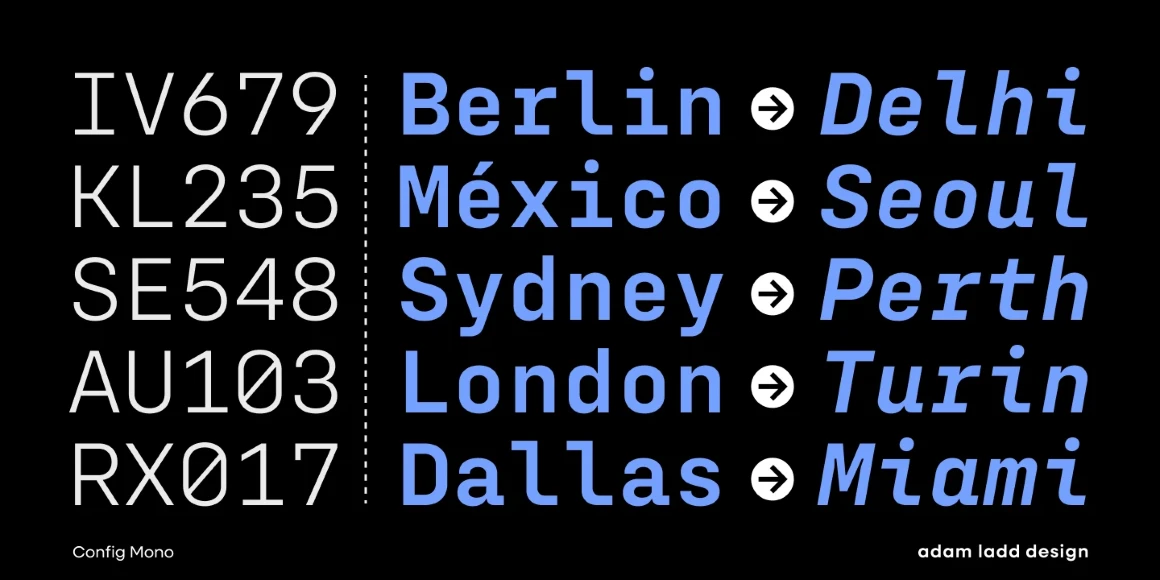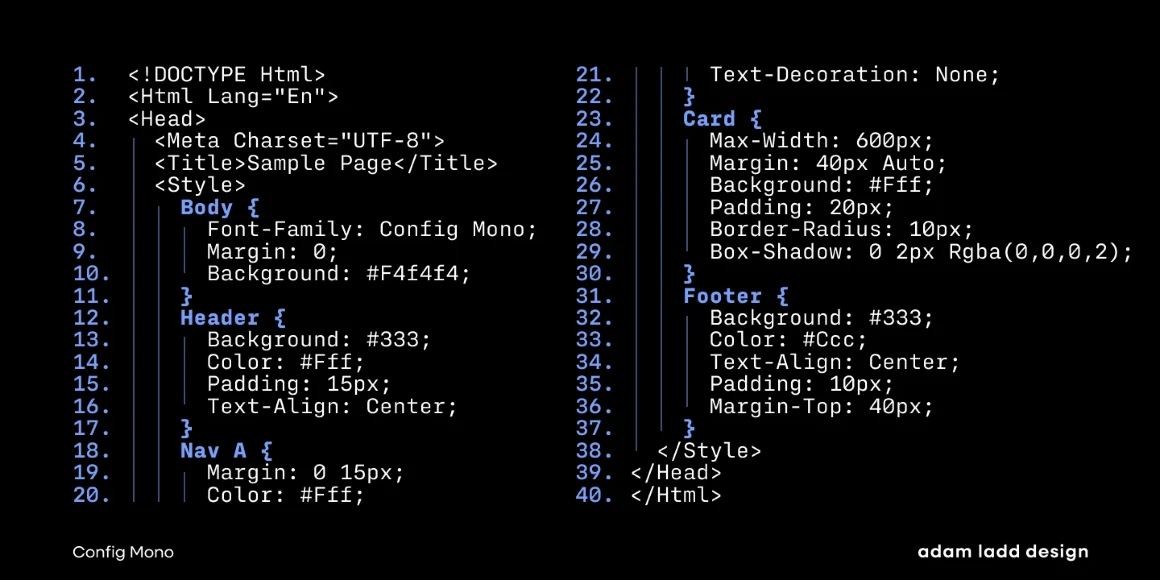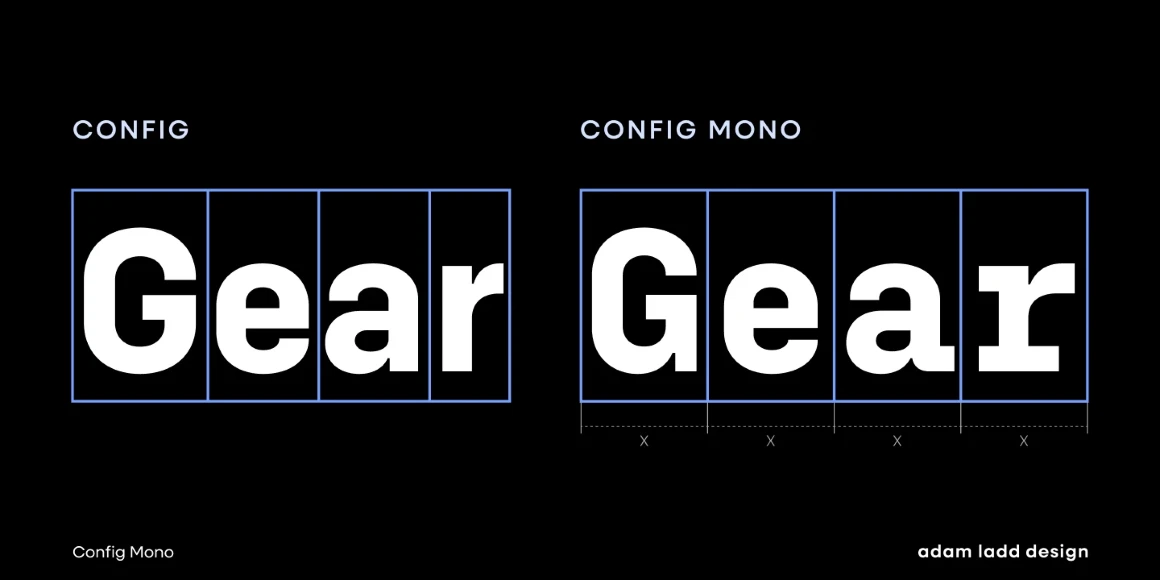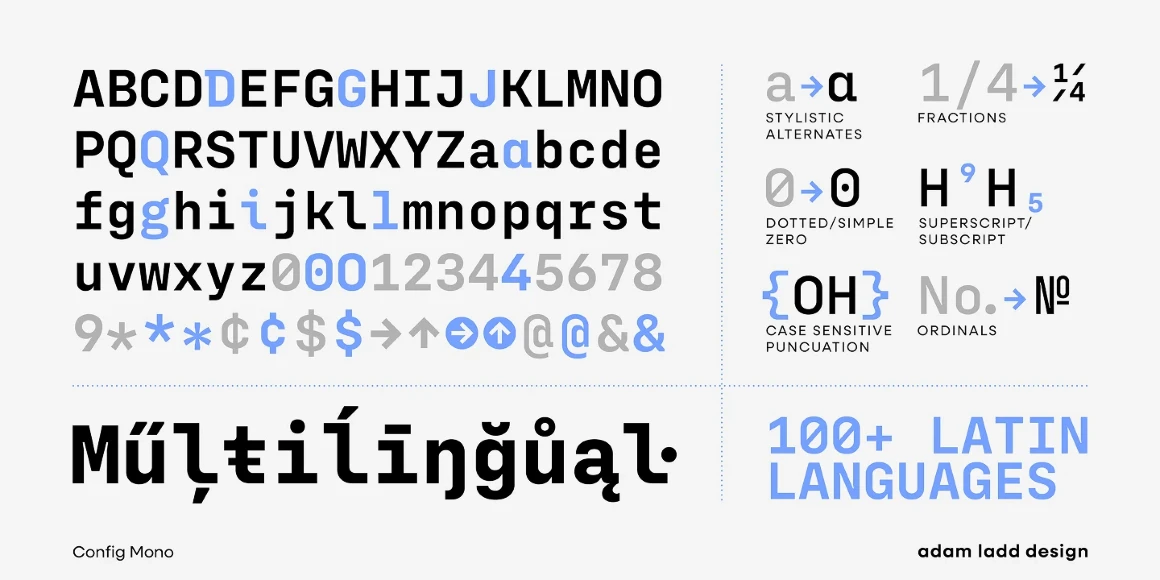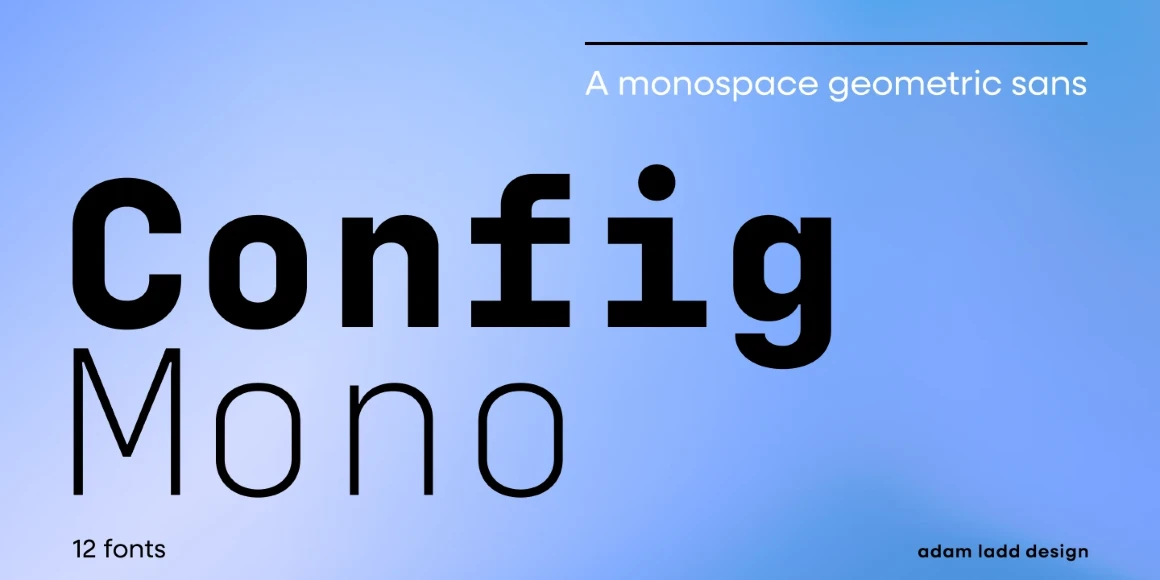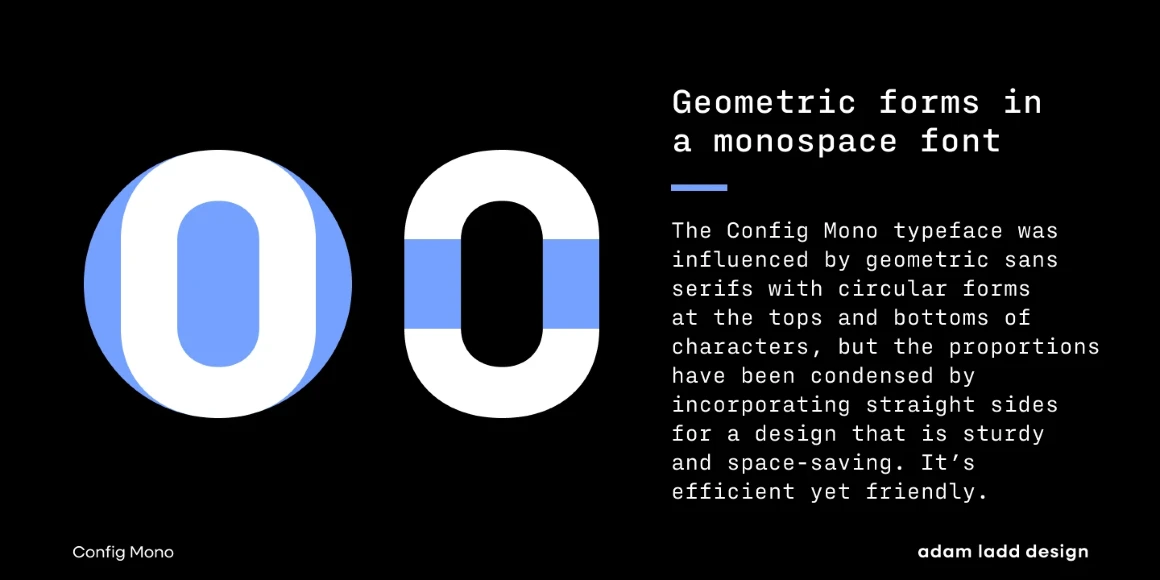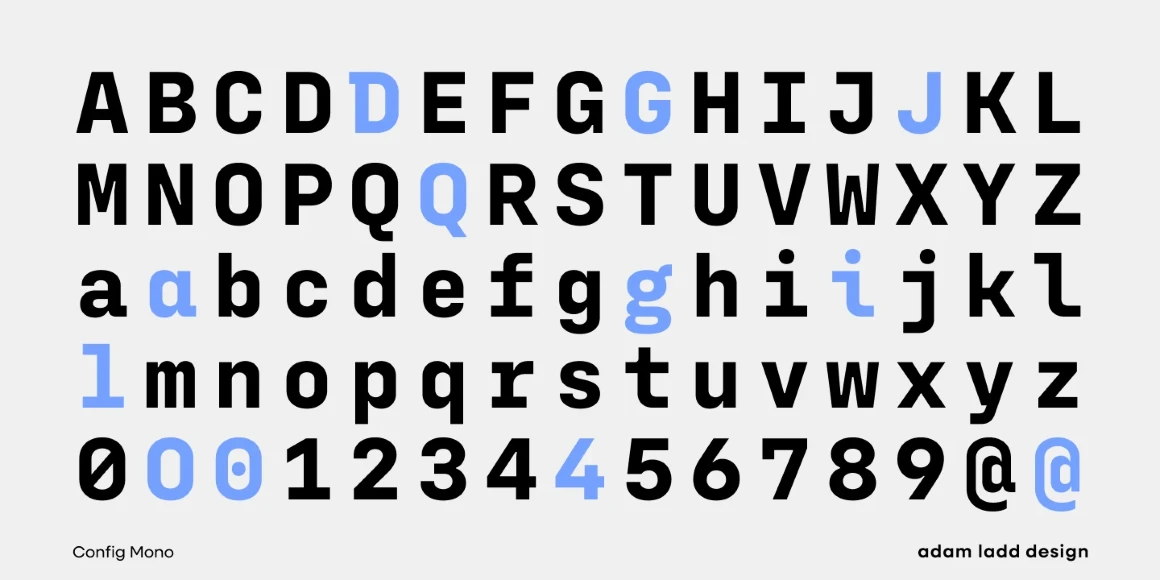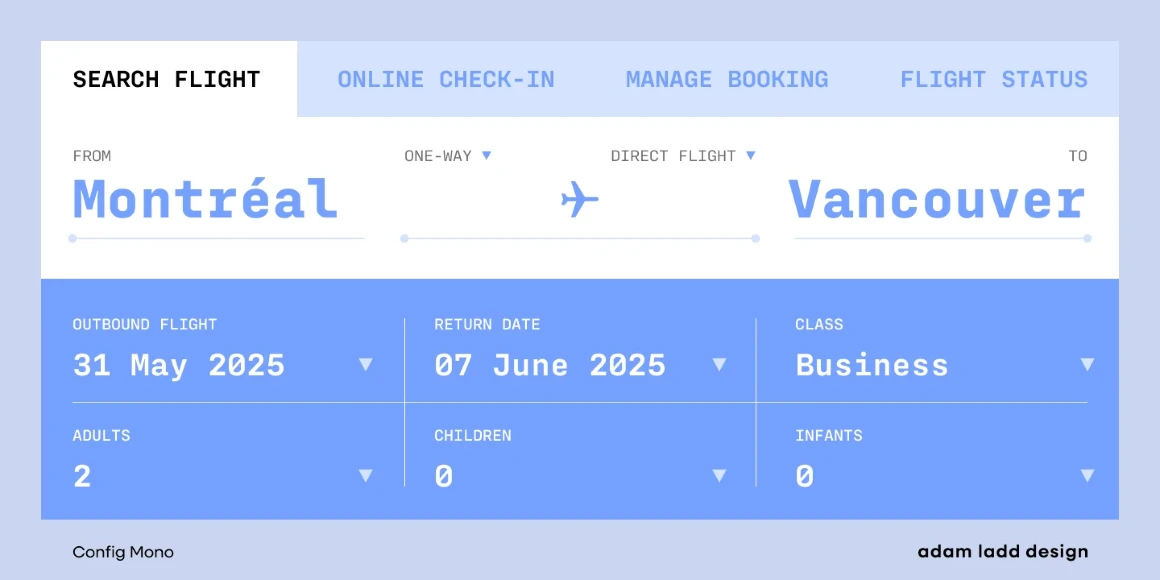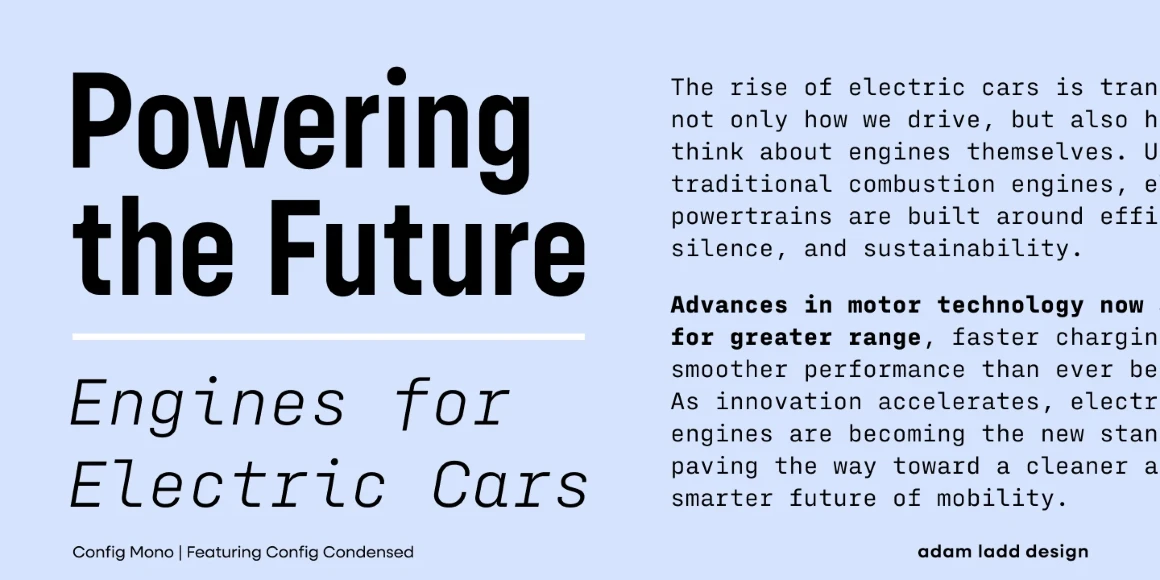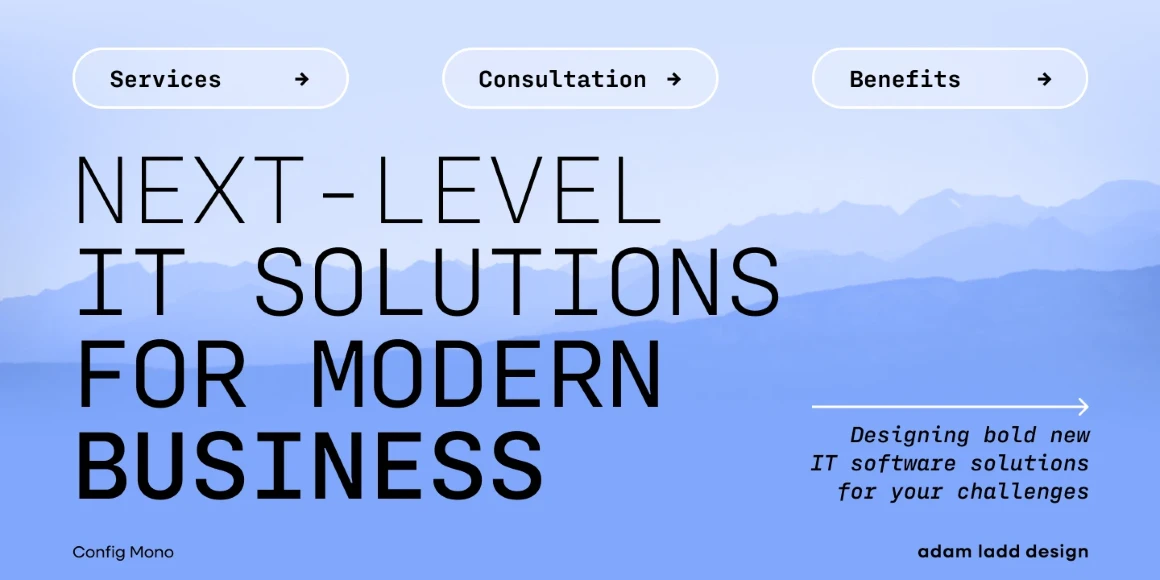
Config Mono
By Adam Ladd
Config Mono is a monospace sans serif, adapting the modern technical spirit of the Config font family into a fixed-width format. Modified for clarity and utility, it introduces subtle refinements in the roman and italic, enhancing readability across digital and print environments. Stylistic alternates give added flexibility, while the design remains clean and versatile — well-suited for smaller sizes in UI, coding, game consoles, and captions, and for larger sizes in magazines, textbooks, and packaging.